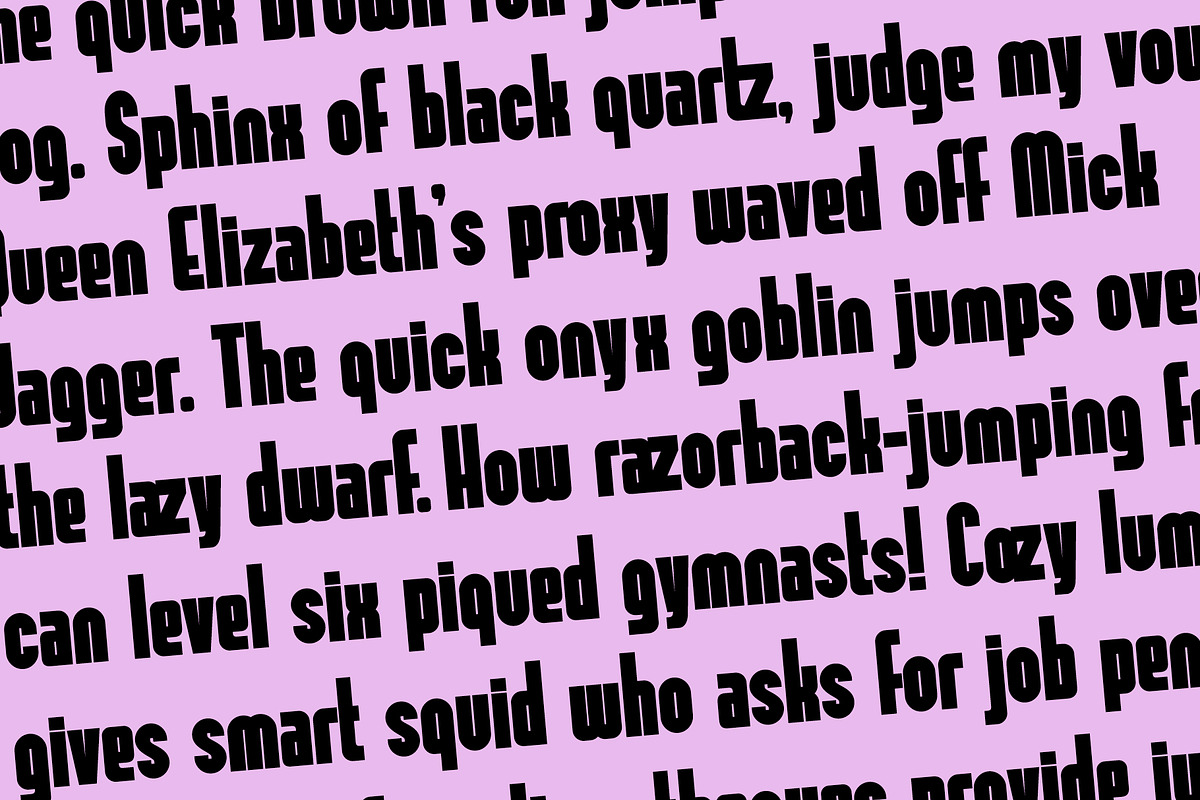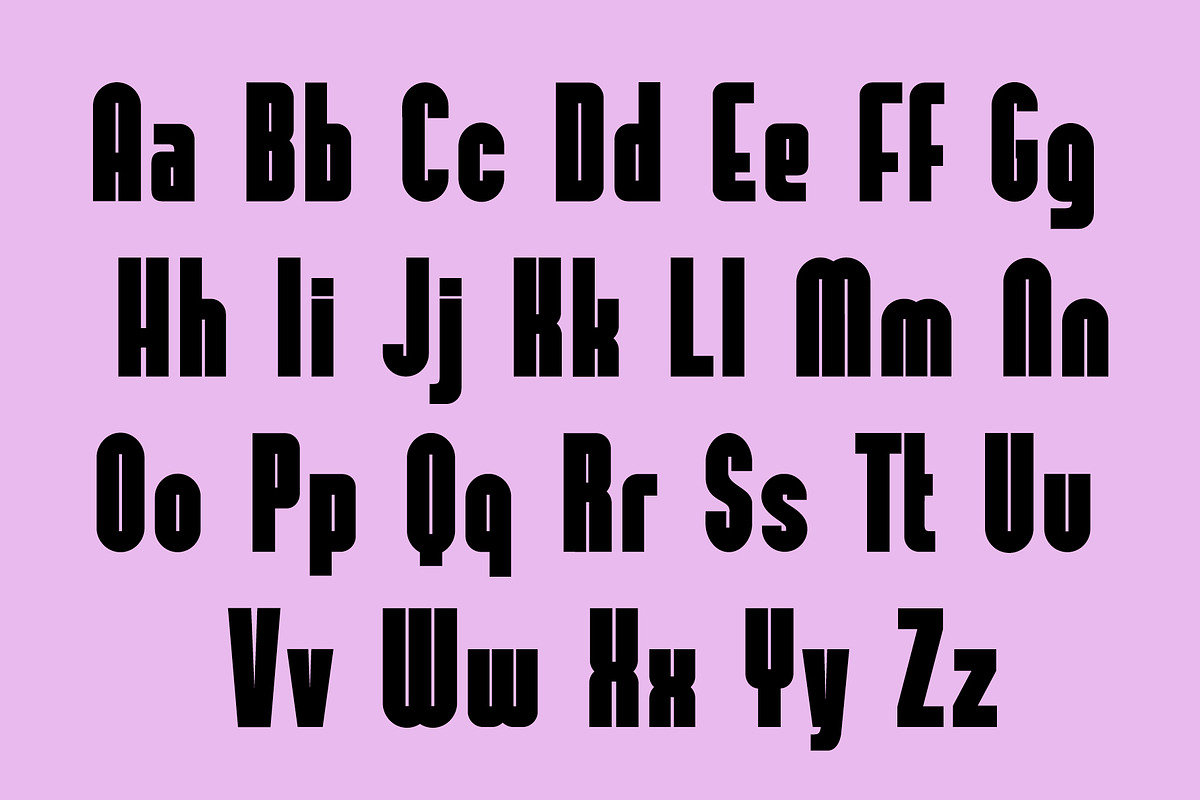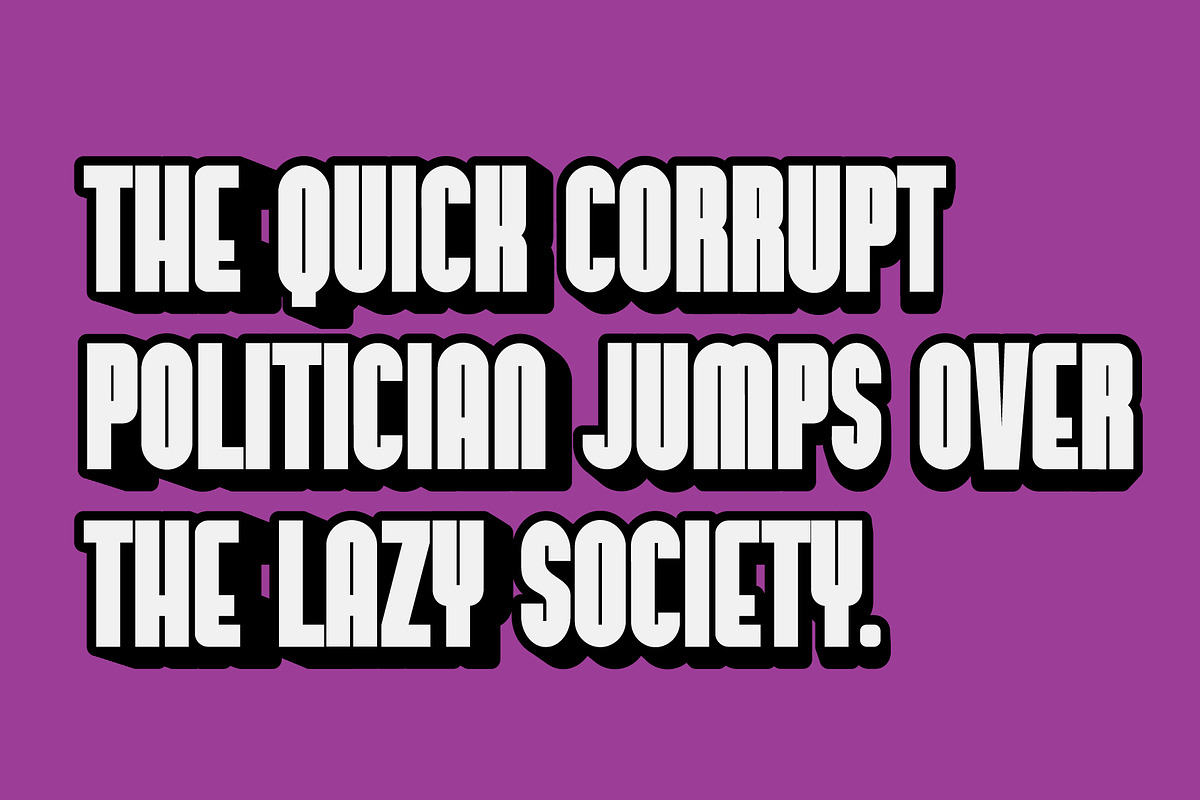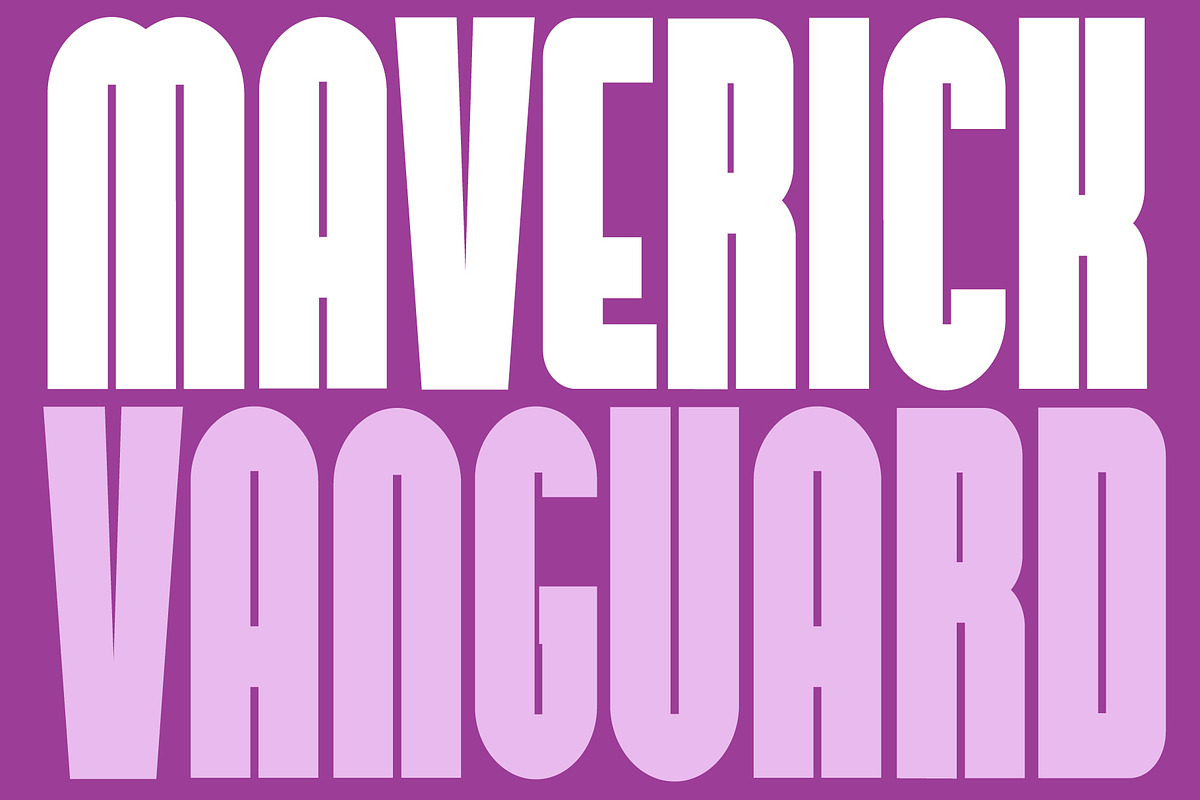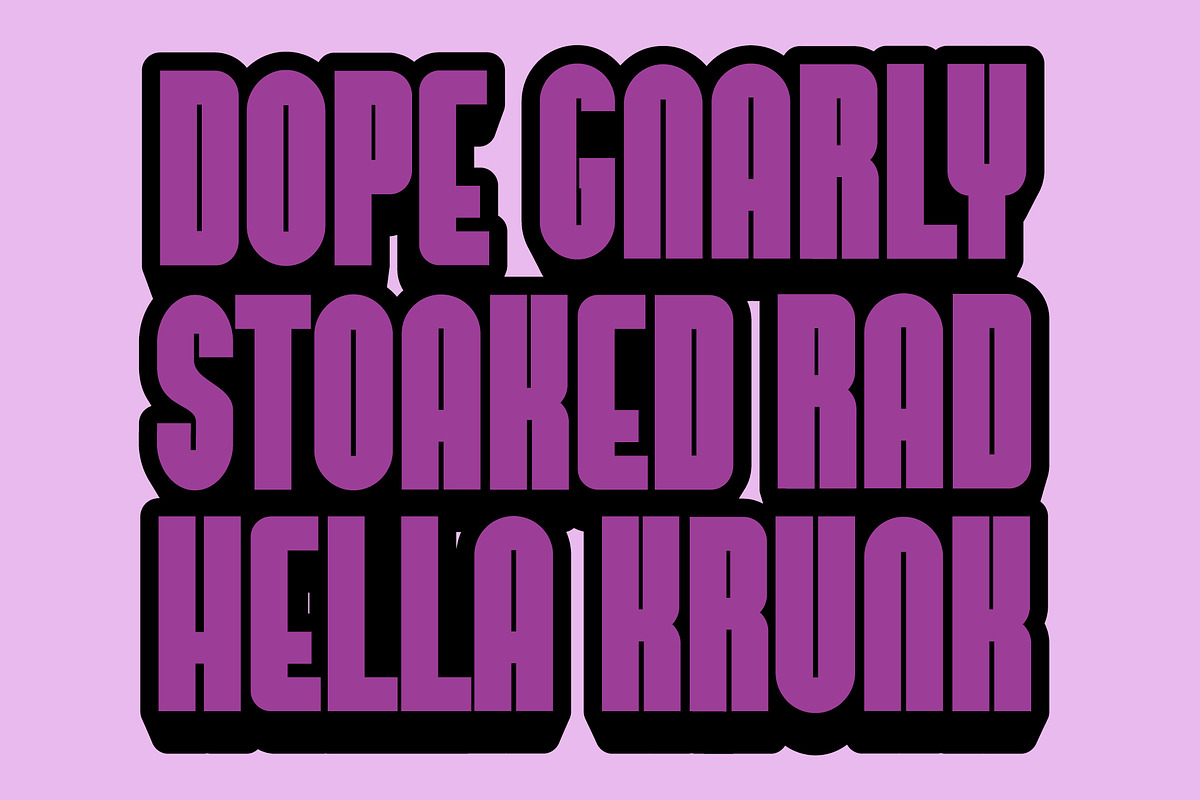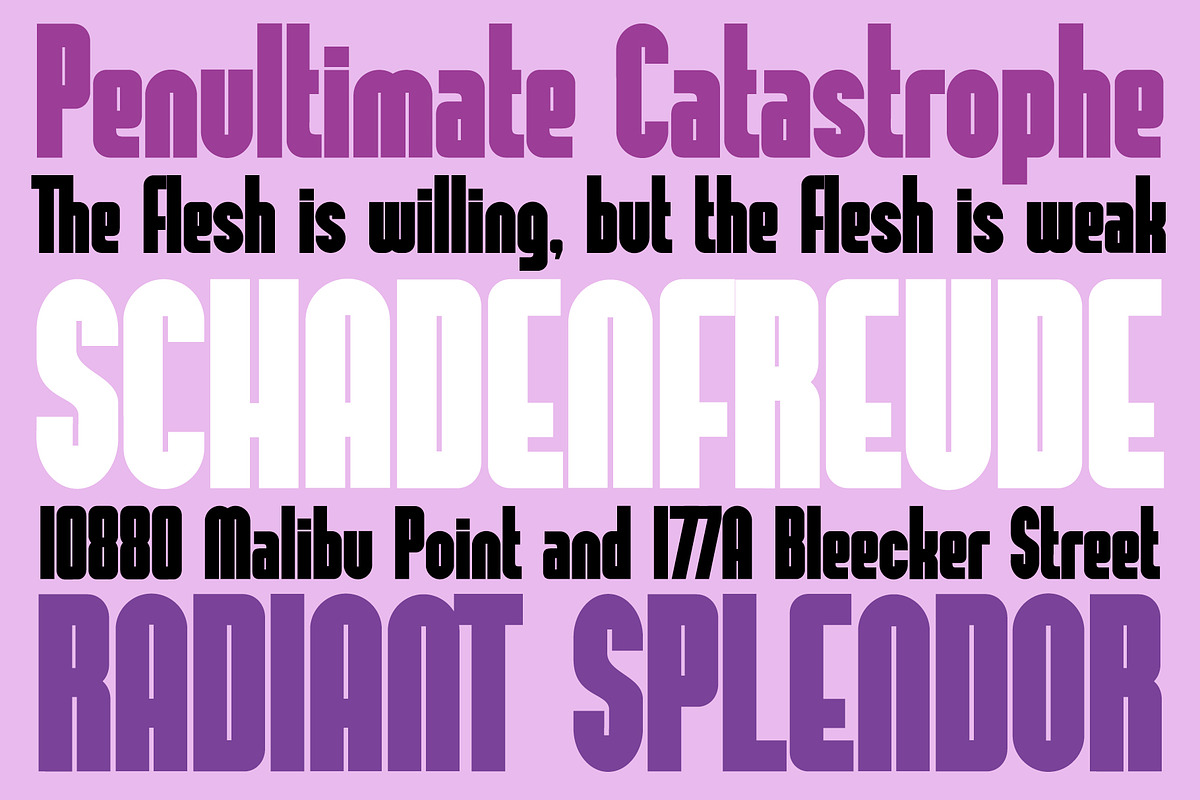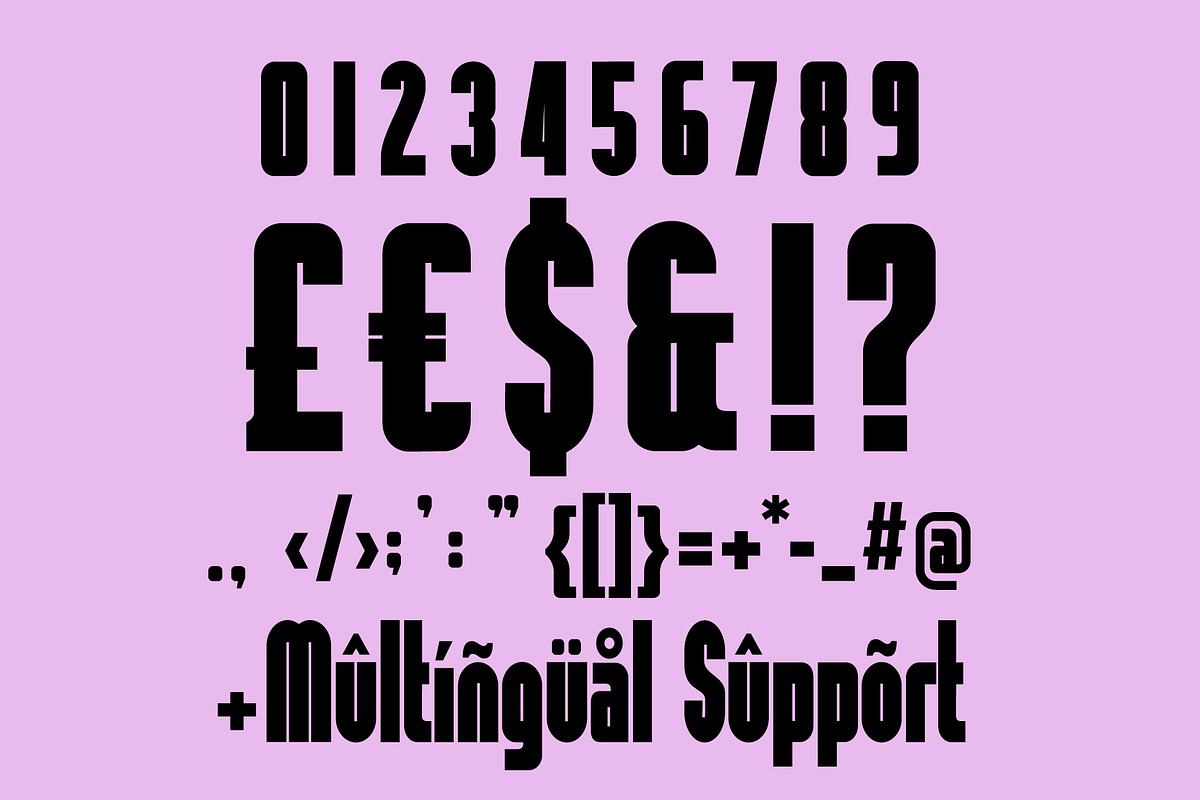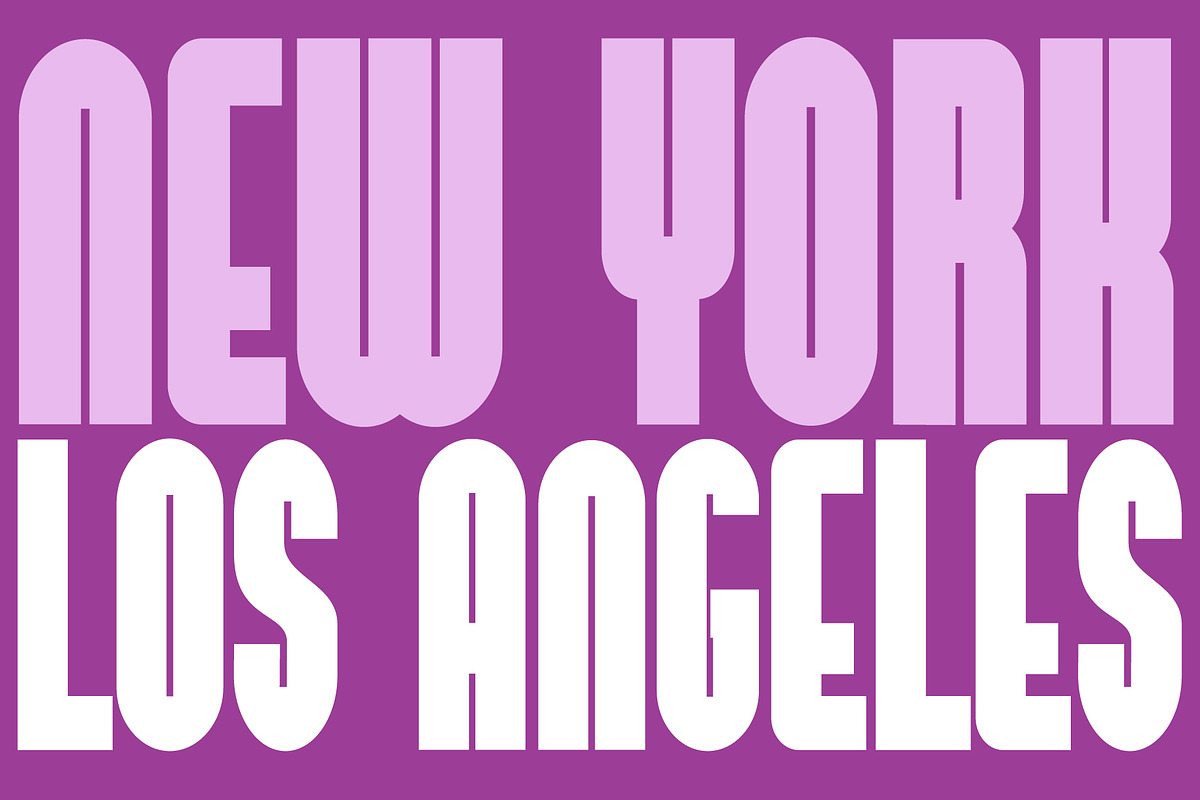
GUSTO
GUSTO – A Bold Modern Condensed Sans
Bring energy, attitude, and personality to your designs with GUSTO, a modern condensed sans serif built for impact.
With its tall, tight letterforms and striking rhythm, GUSTO commands attention in headlines, posters, logos, album covers, and editorial spreads. Its exaggerated vertical proportions and sharp cut-ins give it a contemporary edge while keeping a retro punch that feels both gnarly and refined.
Perfect for projects that need loud, fearless typography, GUSTO shines in all caps settings, stacked text treatments, and bold statements. Whether you’re designing for streetwear, music, magazines, or branding, this font makes sure your words don’t whisper—they roar.